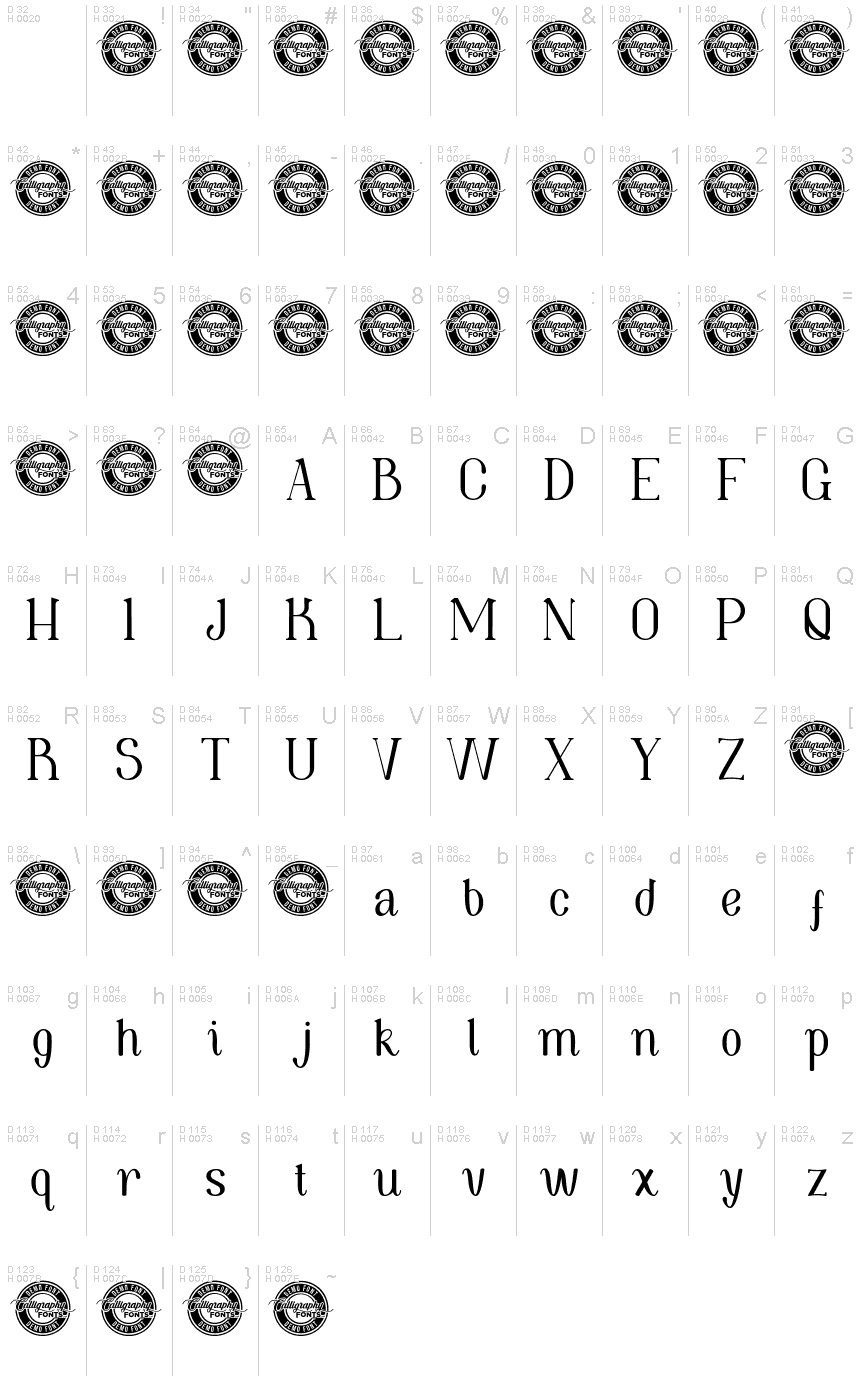
Mazy Theory Demo
Mazy Theory is a display font designed by Calligraphy Fonts. Its vintage style and semi-light weight make it perfect for projects that require a touch of nostalgia and elegance. This typeface's ornate curves flow seamlessly, making it ideal for invitations, greeting cards, and branding projects that need a touch of sophistication. Its semi-light weight adds a subtle delicacy to headlines, while still maintaining readability. Use Mazy Theory for your next project where you want to evoke the charm of the past with modern-day flair. This font will give your designs the timeless quality they deserve!